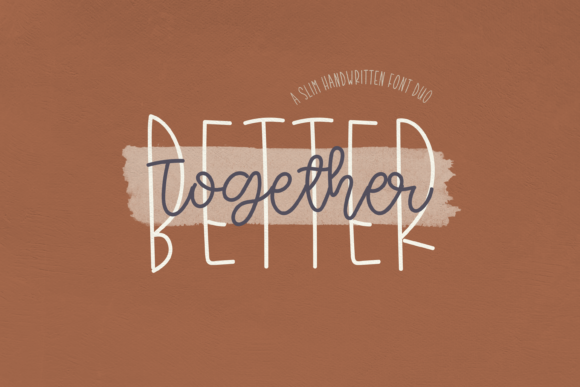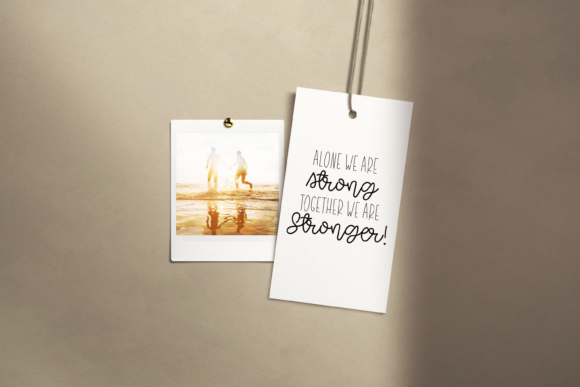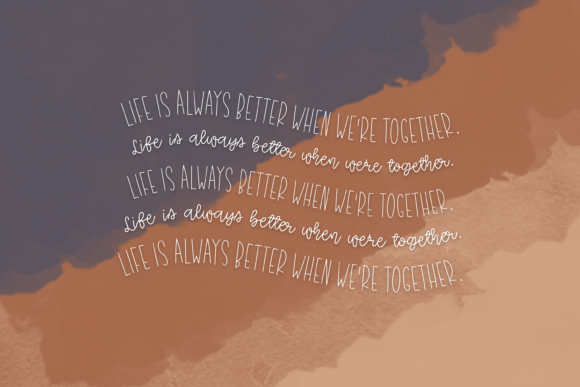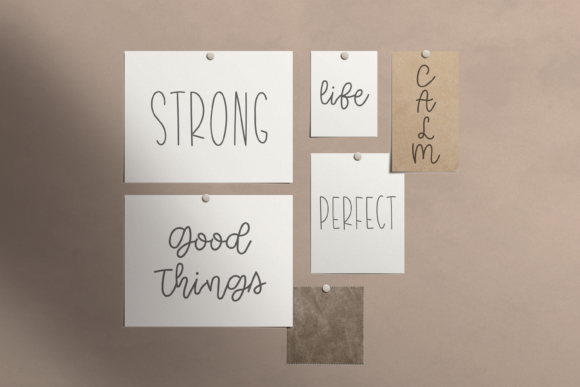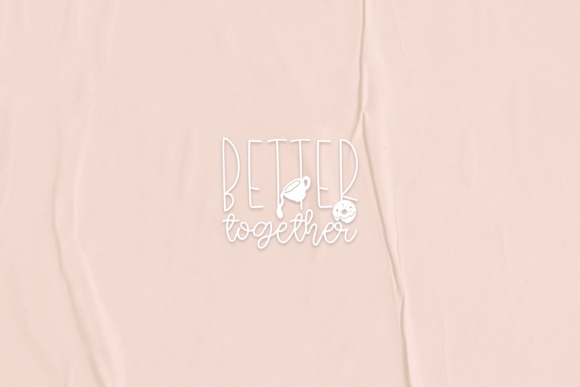
About Better Together Duo Font
Better Together is a tall, thin, and bouncy duo font (sans serif and handwritten). Get inspired by its elegant feel and use it to turn any design project into a standout!